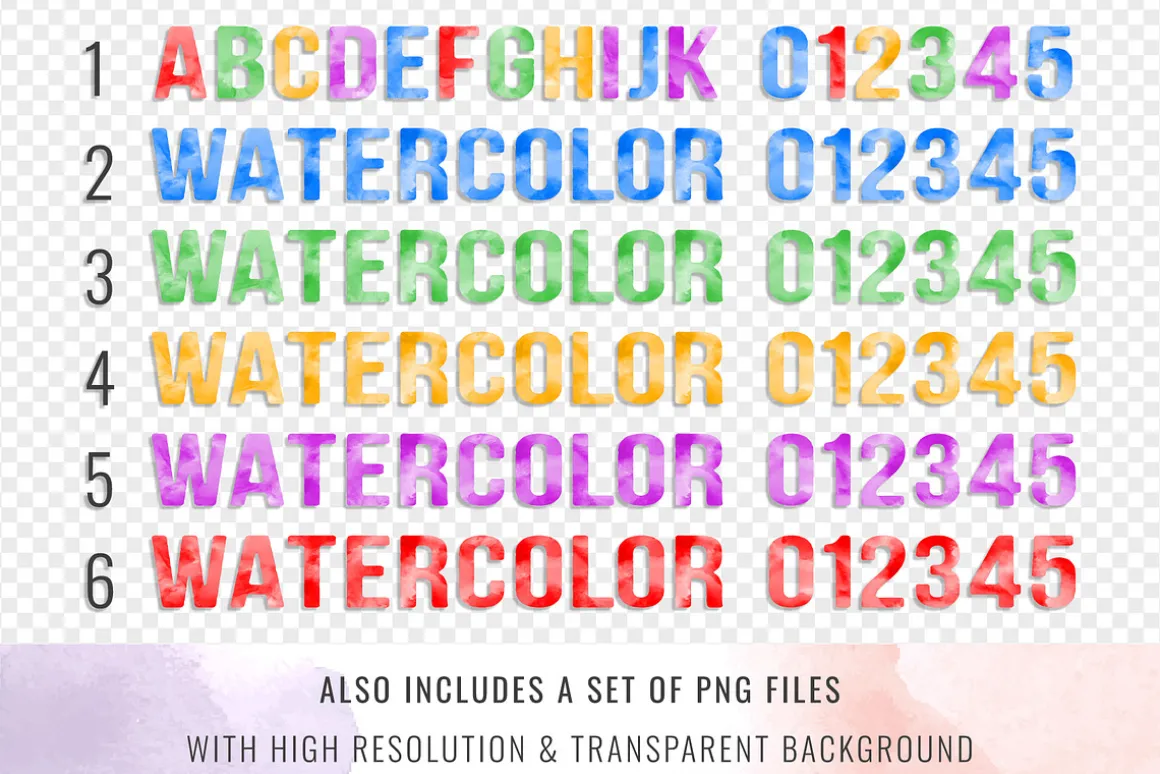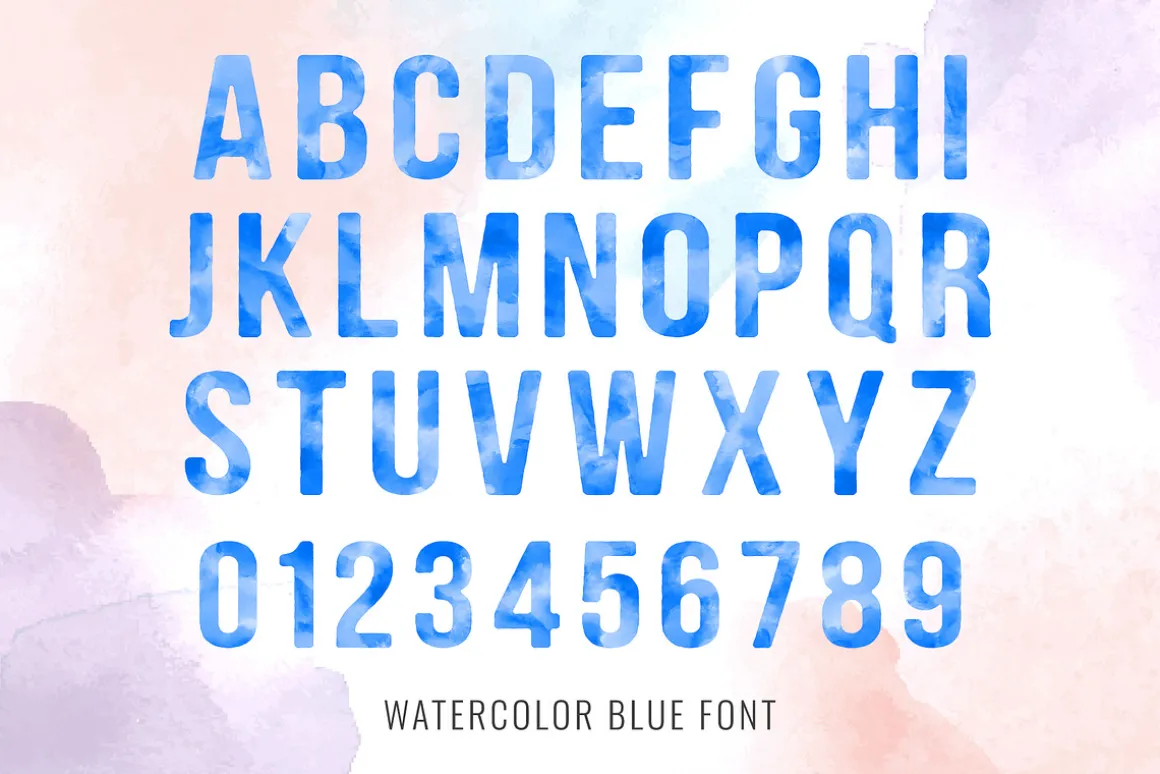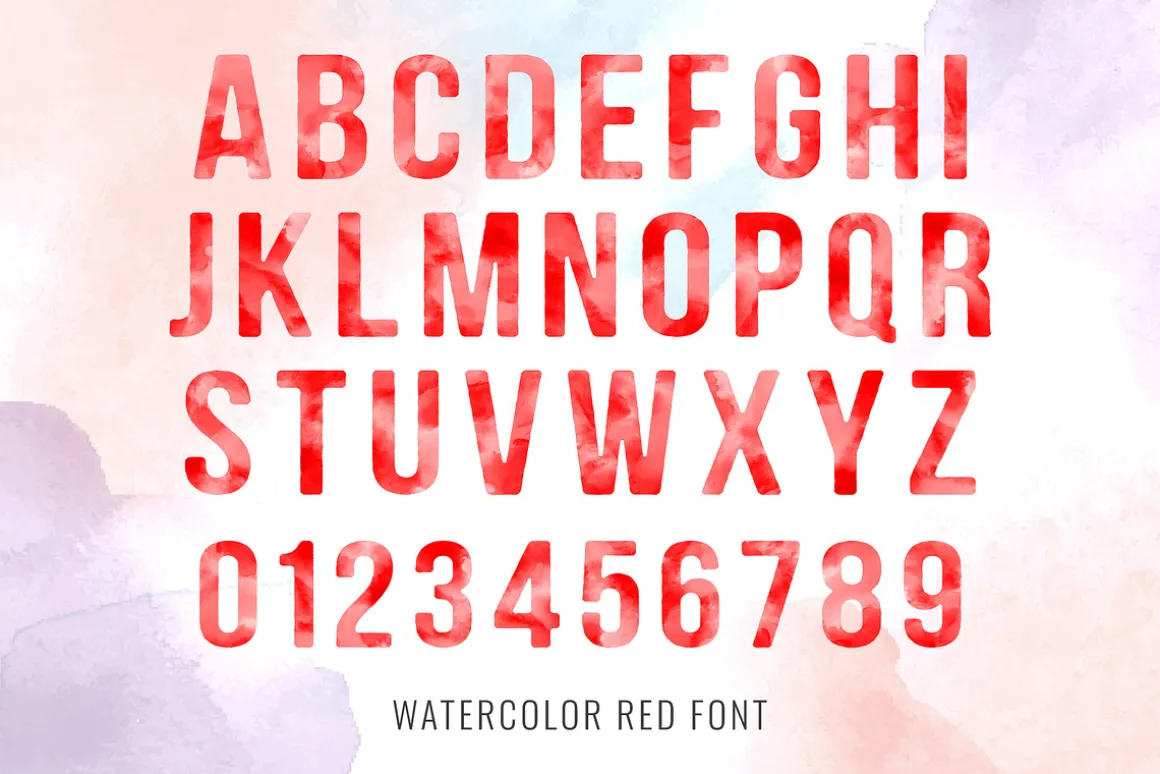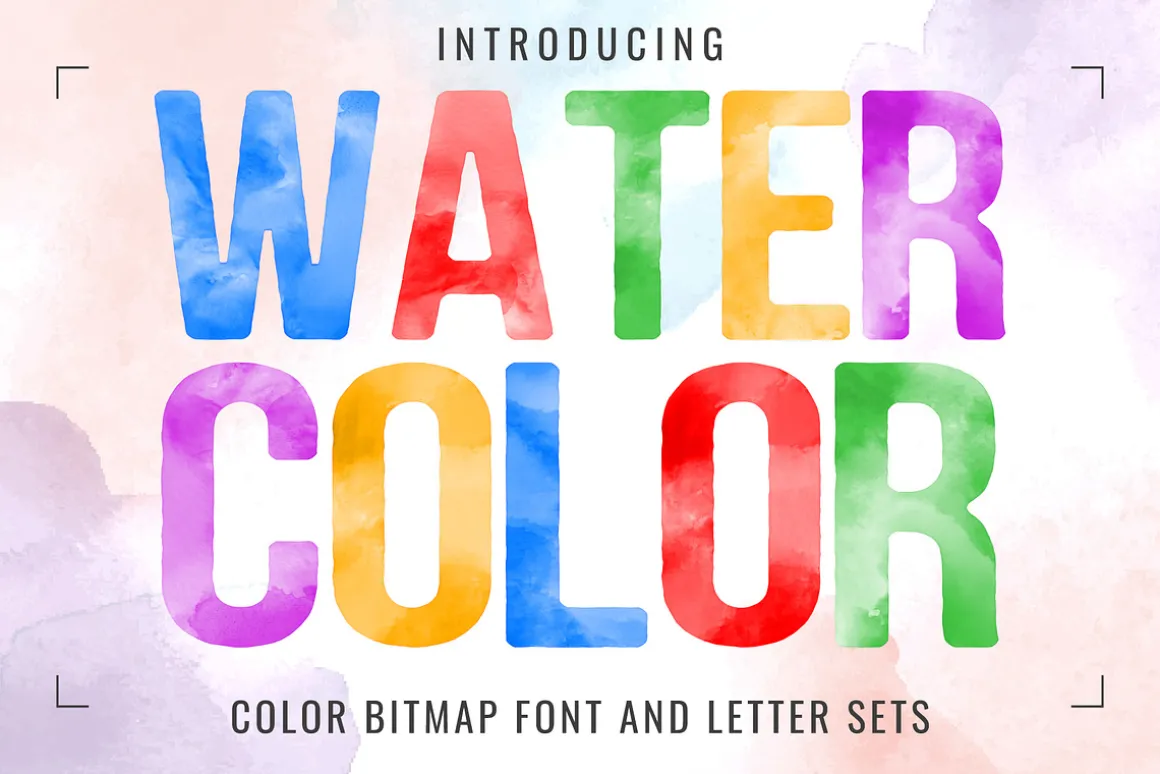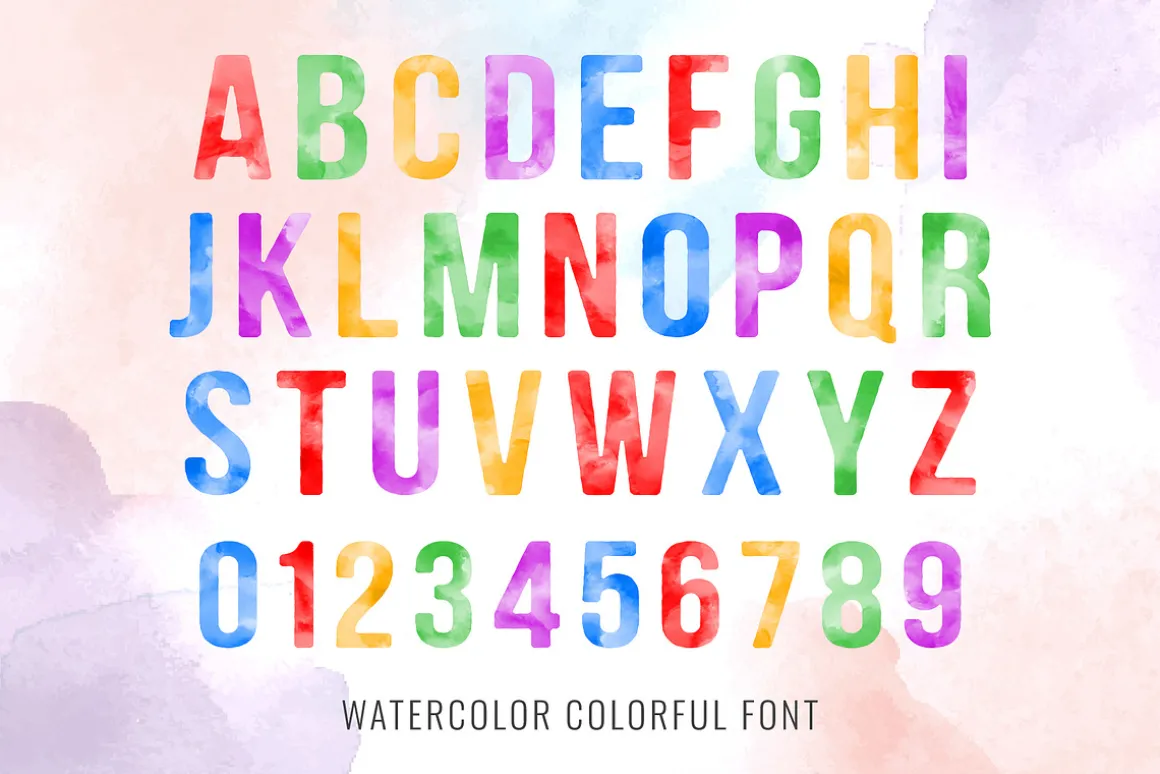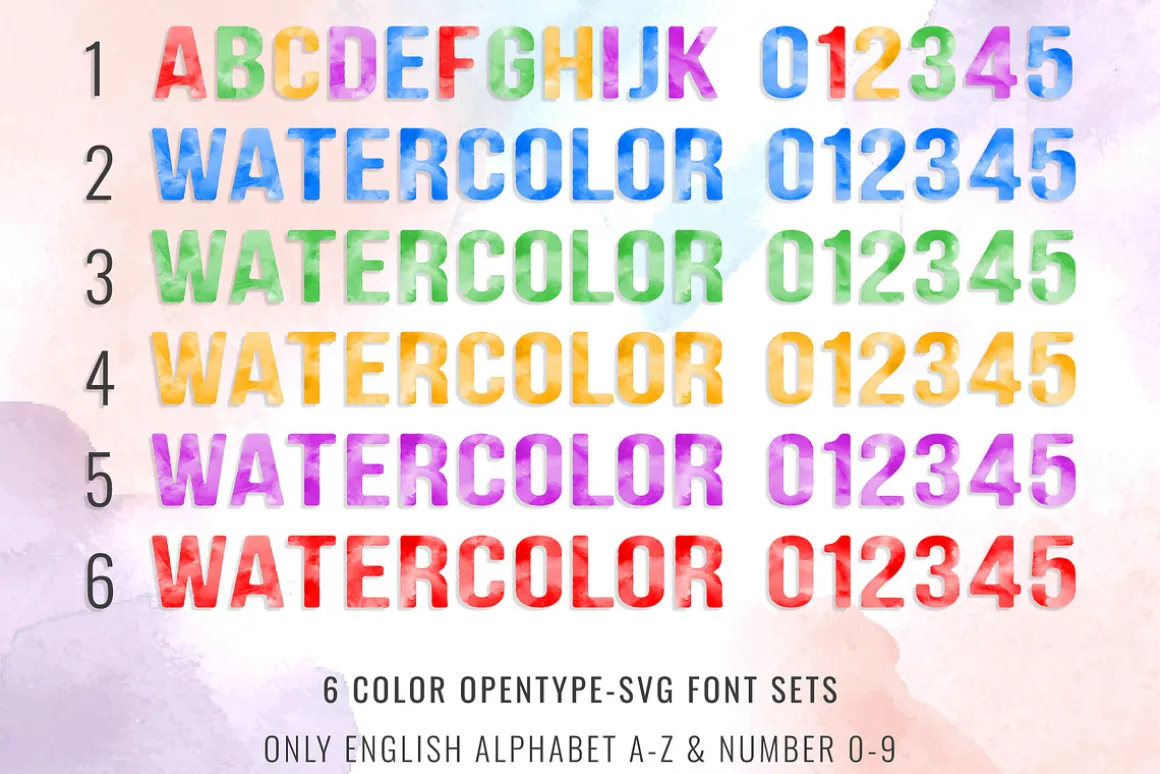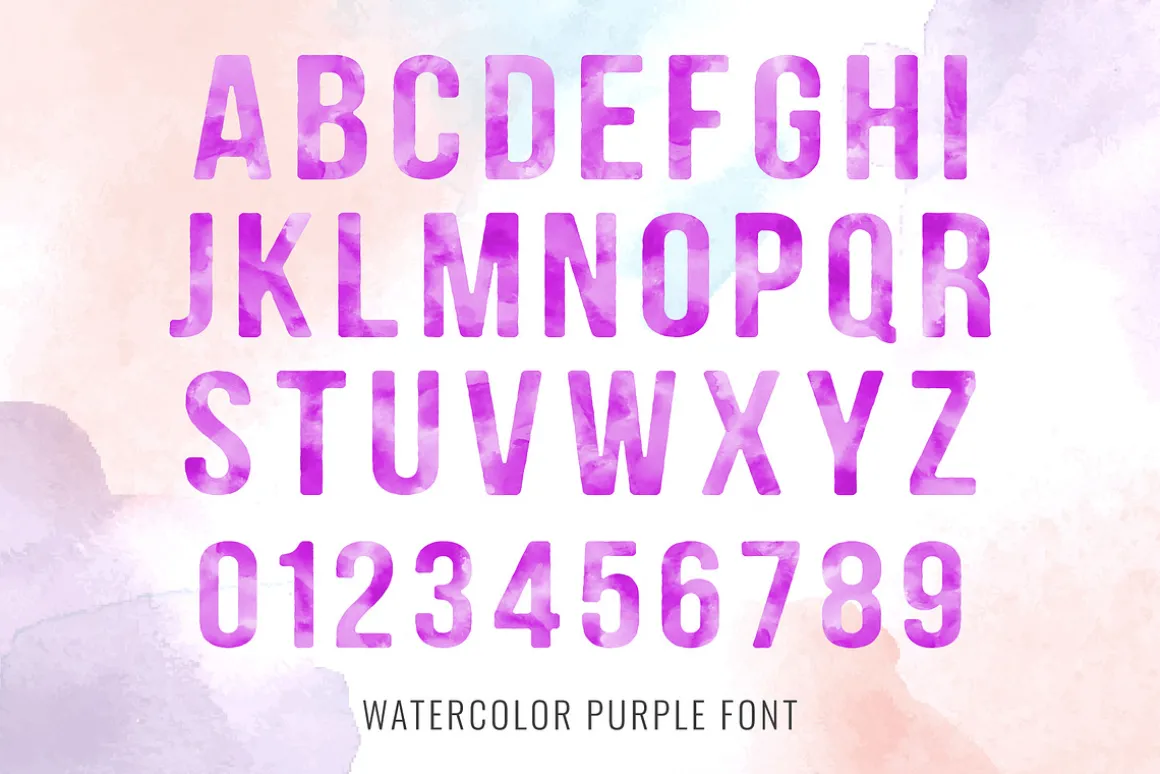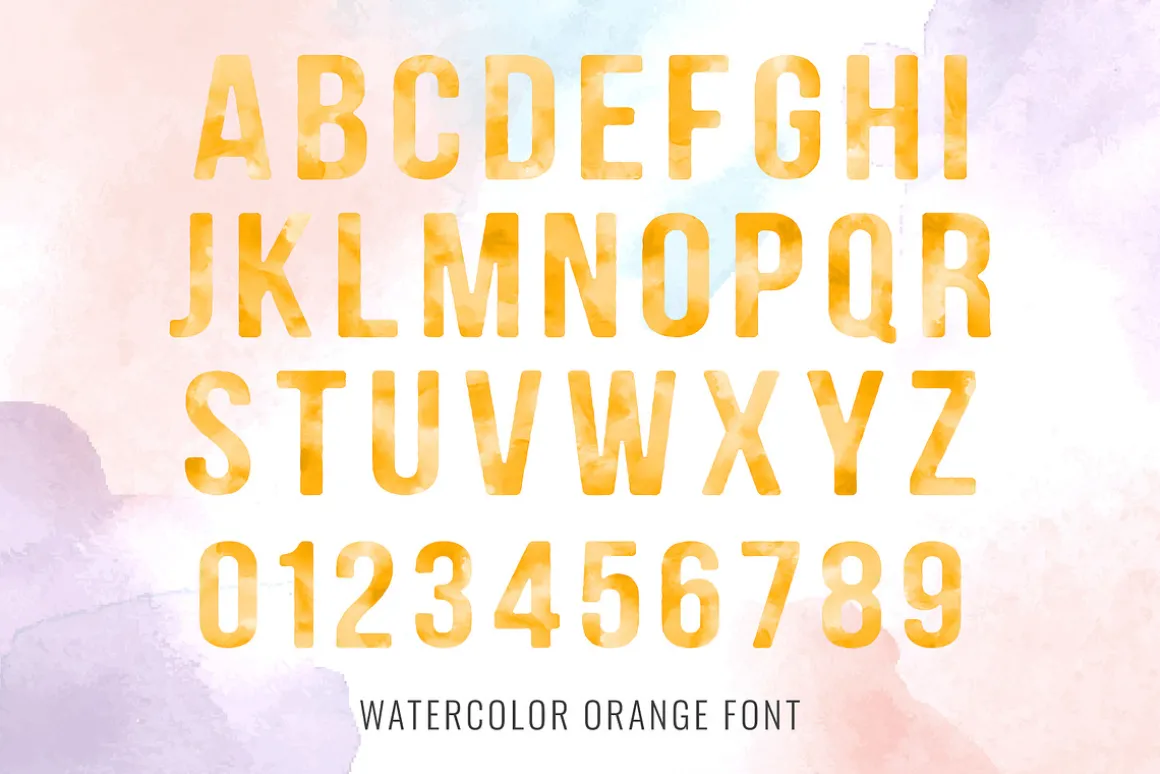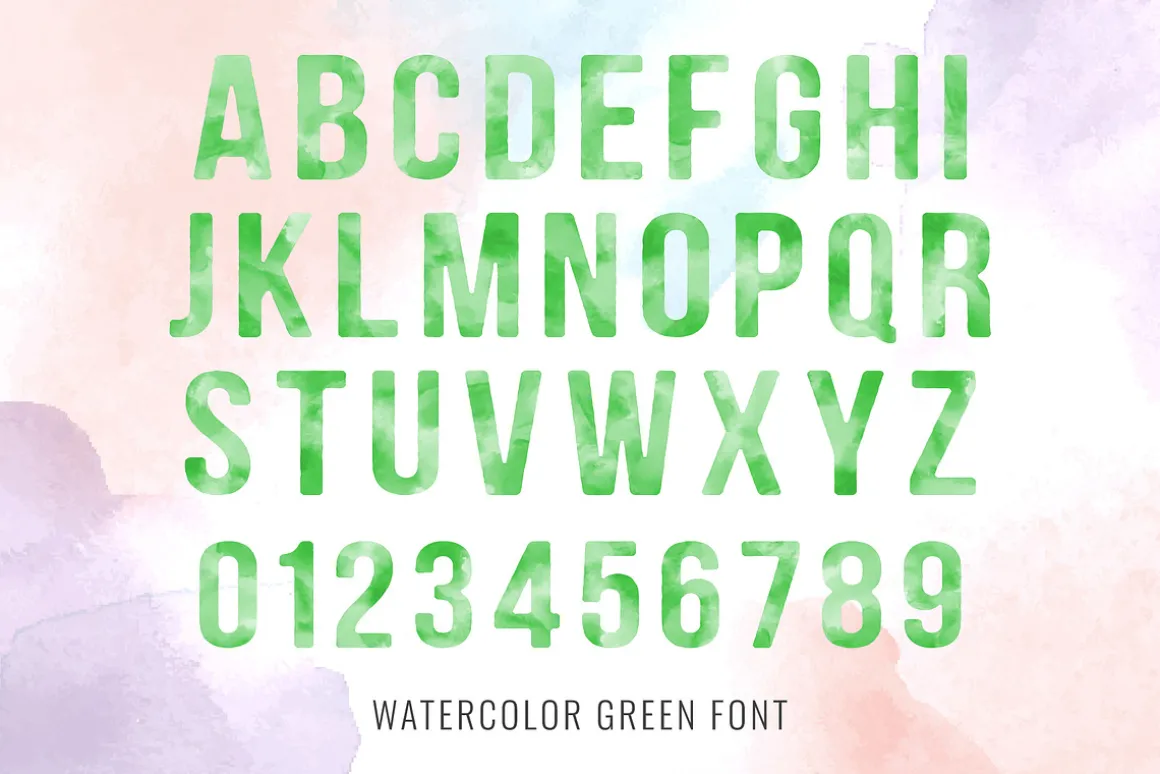
Introducing “Watercolor Font” – 6 eye-catching and sweet color fonts. It is a colorful watercolor-style font designed for a great visual impact. All the letters in these fonts are colored brightly and vividly so they are perfect for all your cheerful projects.
- 6 Color font sets in the family.
- This OpenType-SVG (or Color Font) Font is made from color bitmap images, like any other photo or pixel-based image, that can be used as a usual OTF font. The resolution of an OTF file is roughly 1,000 px in height.
- This entire font is capitalized.
- Only the English language is available.
- Letters: A B C D E F G H I J K L M N O P Q R S T U V W X Y Z.
- Numbers: 0 1 2 3 4 5 6 7 8 9.
- Excluding punctuation.
- Please consider that only the English language and numbers are available, Not including punctuation marks, please check out the screenshot with all existing characters.